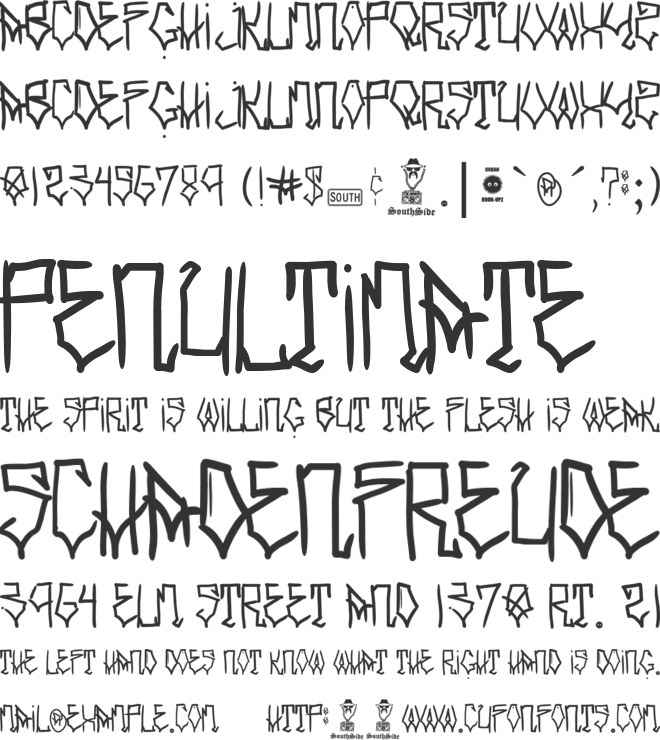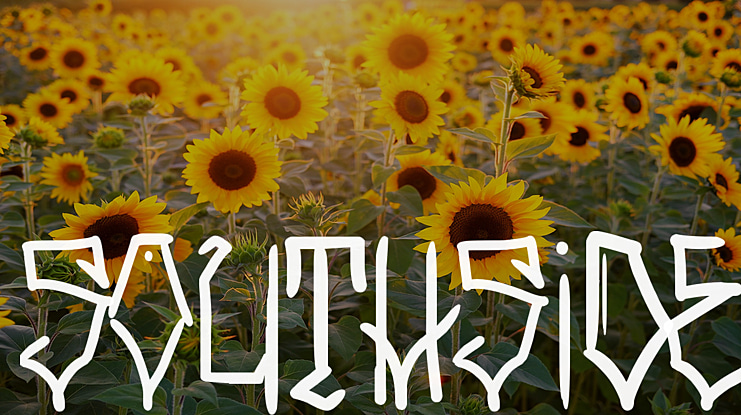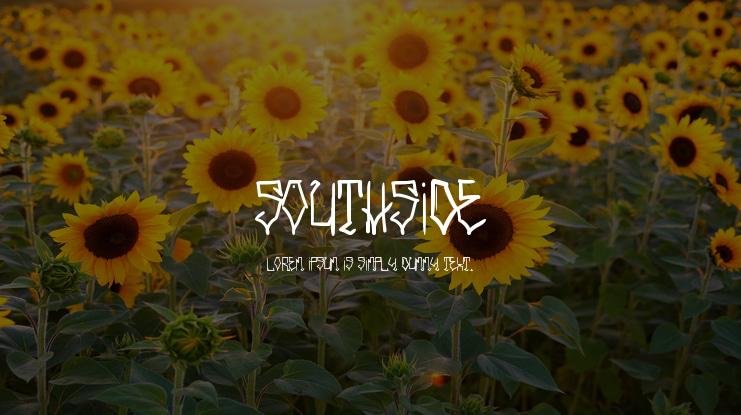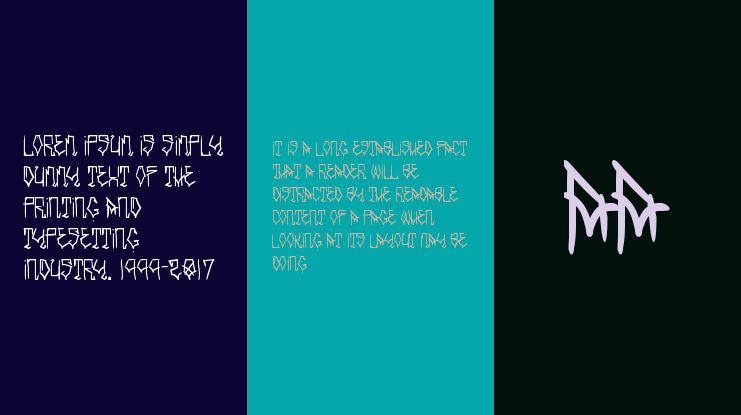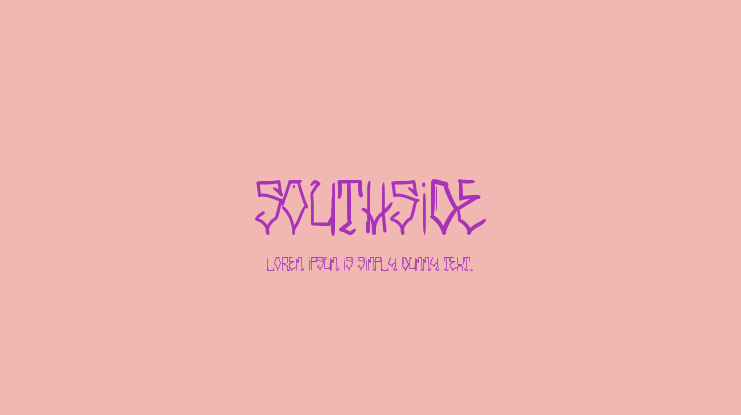
SOUTHSIDE Font
Being from California I have lived and traveled up and down the state. I created this lettering while flying on a plane across America. This style is influenced By the Graffiti of Southern California .